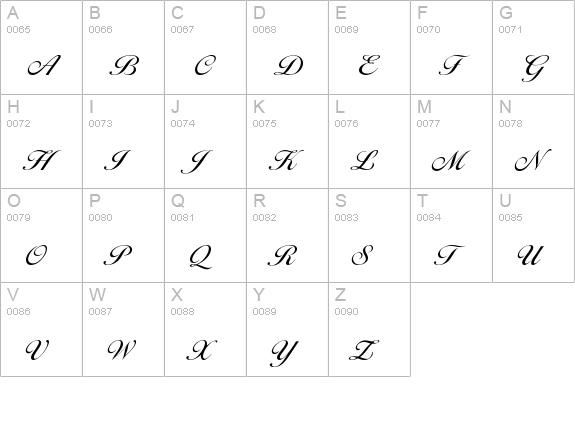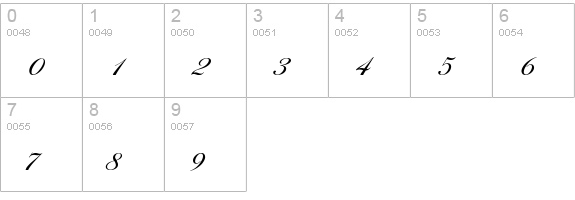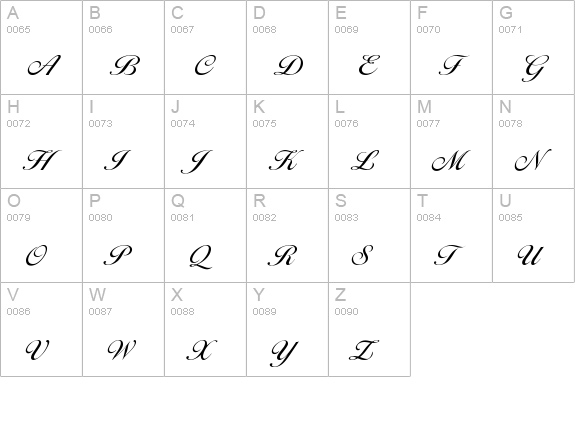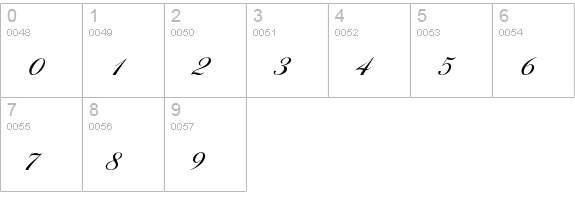
Margaret Regular is the standard, neutral variant in the Margaret typeface family \xE2\x80\x94 well suited to general body text, paragraphs, and standard typographic work.
Introducing Margaret Regular, a timeless font that effortlessly combines elegance and versatility. This font is perfect for projects that require a touch of sophistication, whether it be invitations, branding materials, or editorial designs. With its clean lines and balanced proportions, Margaret Regular exudes a sense of refinement that will elevate any creative endeavor. What sets Margaret Regular apart is its accessibility - it is freely available to download at FontsMarket.com. This means that you can add this remarkable font to your collection without any cost, allowing you to explore endless possibilities for your design projects. Whether you are a professional graphic designer or an aspiring artist, Margaret Regular offers an incredible opportunity to enhance your work without breaking the bank. The smooth curves and graceful letterforms of Margaret Regular create a harmonious visual experience, making it a fitting choice for both print and digital mediums. Its legibility ensures that your message will be effortlessly conveyed, captivating readers with its timeless charm. From headlines to body text, this font is a true workhorse, providing consistency and cohesiveness to your compositions. With its wide range of characters and glyphs, Margaret Regular offers multilingual support, making it a global font solution. Whether you are creating content in English, French, Spanish, or any other language, this font has you covered, ensuring that your message reaches audiences around the world. In conclusion, Margaret Regular is a must-have font for anyone seeking to add a touch of elegance and versatility to their design projects. With its freely available download at FontsMarket.com, you can effortlessly elevate your work without any financial burden. Embrace the timeless beauty of Margaret Regular and unlock a world of possibilities for your creative endeavors.